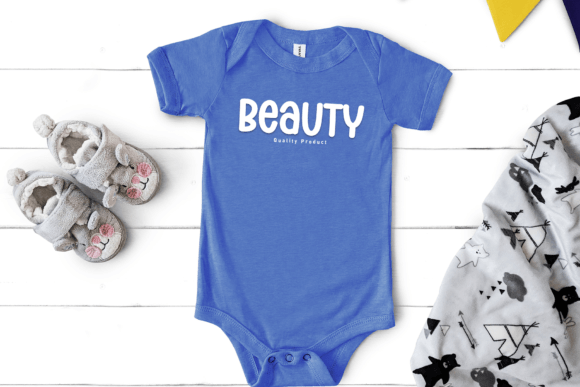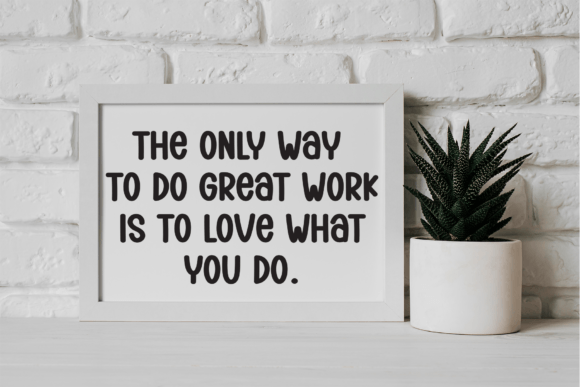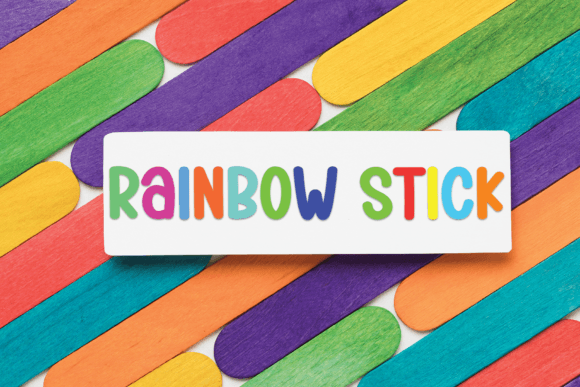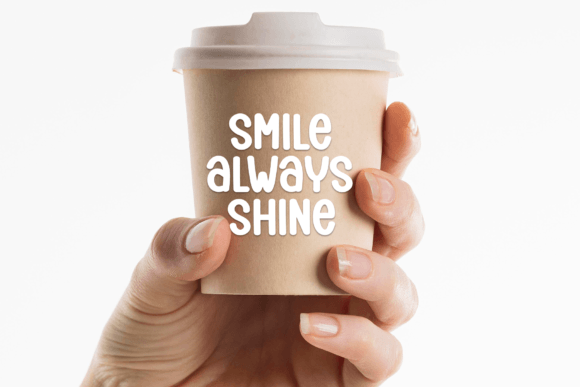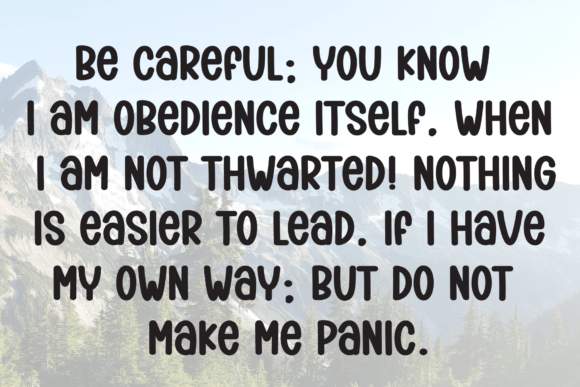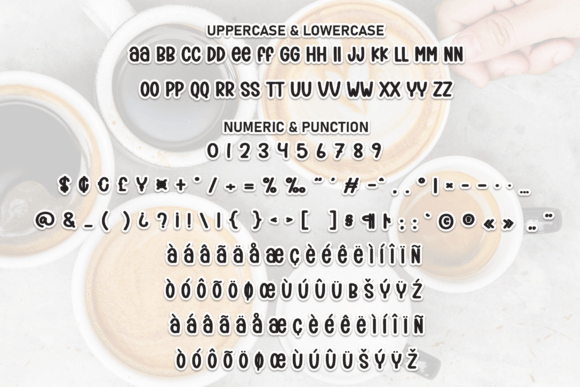
Coffee Break Font: The Perfect Addition to Your Design Toolbox
Are you tired of using the same old fonts in your designs? Do you want to add a touch of personality and whimsy to your text? Look no further than the Coffee Break Font. This playful, handwritten font is perfect for creating casual and inviting designs with a friendly, relaxed feel.
The Characteristics of Coffee Break Font
Coffee Break Font is a unique and charming font that is sure to capture the attention of your audience. Its handwritten style gives it a personal and cozy feel, making it perfect for designs that require a touch of warmth and friendliness. The font is highly legible, even at smaller sizes, making it versatile and easy to use.
Some of the key characteristics of Coffee Break Font include:
- Playful and handwritten style
- Coy and personal feel
- Highly legible, even at smaller sizes
- Perfect for casual and inviting designs
- Great for designs that require a friendly, relaxed feel
Uses for Coffee Break Font
Coffee Break Font is a versatile font that can be used in a variety of design applications. Here are some ideas to get you started:
- Branding and Packaging: Use Coffee Break Font to add a personal touch to your brand’s packaging and marketing materials.
- Social Media Graphics: Create engaging social media graphics with Coffee Break Font to add a friendly and approachable feel to your posts.
- Blog and Website Design: Use Coffee Break Font to create a casual and inviting atmosphere on your blog or website.
- Stationery and Invitations: Add a touch of whimsy to your stationery and invitations with Coffee Break Font.
- Crafting and DIY Projects: Use Coffee Break Font to add a personal touch to your crafting and DIY projects, such as handmade cards and gift tags.
Tips for Using Coffee Break Font
Here are some tips for getting the most out of Coffee Break Font:
- Pair with Other Fonts: Experiment with pairing Coffee Break Font with other fonts to create a unique and interesting contrast.
- Use in Combination with Images: Use Coffee Break Font in combination with images to create a visually appealing design.
- Experiment with Colors: Try out different colors and color combinations to find the perfect match for your design.
- Keep it Simple: Don’t be afraid to keep your design simple and clean to let Coffee Break Font shine.
Why Designers and Crafters Love Coffee Break Font
Coffee Break Font has quickly become a favorite among designers and crafters due to its unique and charming style. Here are some reasons why:
- Unique Style: Coffee Break Font has a one-of-a-kind style that sets it apart from other fonts.
- Ease of Use: The font is highly legible and easy to use, making it perfect for designers and crafters of all skill levels.
- Versatility: Coffee Break Font can be used in a variety of design applications, from branding and packaging to social media graphics and blog design.
- Emotional Connection: The font’s playful and handwritten style creates an emotional connection with the audience, making it perfect for designs that require a personal touch.
In conclusion, Coffee Break Font is a playful and charming font that adds a cozy, personal touch to your text. Its unique style, ease of use, and versatility make it perfect for designers and crafters looking to create casual and inviting designs with a friendly, relaxed feel. Whether you’re working on a branding project, social media graphics, or a crafting project, Coffee Break Font is sure to become a favorite in your design toolbox.